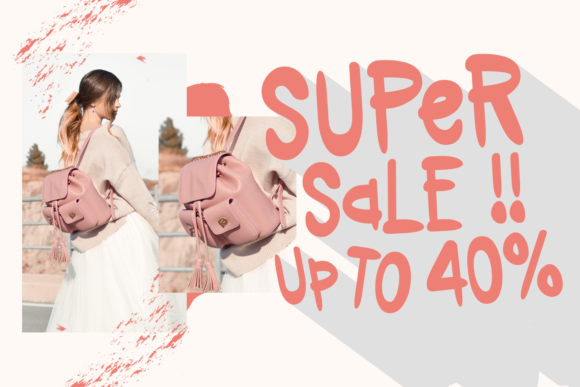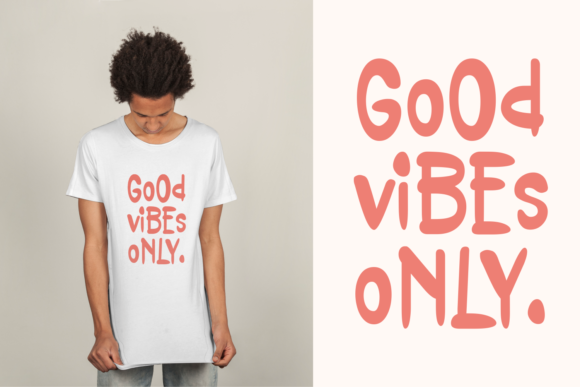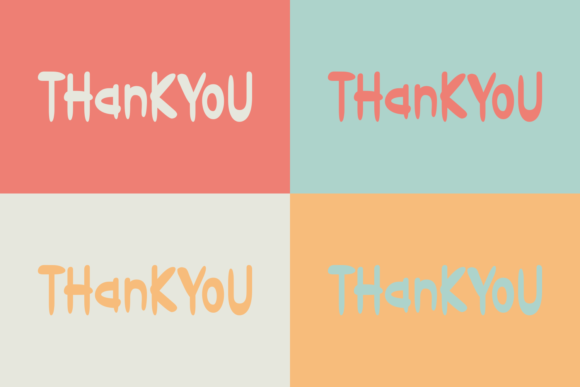
Introduction to Katwo Font
As a designer, there’s nothing quite like the thrill of discovering a new font that sparks creativity and sets your project ablaze. For me, it was the moment I stumbled upon the Katwo Font – a friendly and fun display font that exudes big character and a playful personality.
What drew me to Katwo Font was its unique blend of whimsy and sophistication, making it the perfect addition to any creative project. Whether you’re working on a branding campaign or a social media graphic, Katwo Font’s versatility shines through, offering a seamless experience with a transparent background and high-quality design. And the best part? It’s available for free download, making it an invaluable design resource for any creative enthusiast.
Key Features of Katwo Font
- High-quality, professional font suitable for creative projects, including logos, graphics, and branding materials.
- Features a transparent background, allowing for seamless integration with other design elements and backgrounds.
- Designed to be highly legible and versatile, with a wide range of applications, from body text to headings and titles.
- Unique, modern design aesthetic that sets it apart from other fonts, making it a great choice for designers looking to add a touch of creativity to their projects.
Honest Review: Katwo Font
As a designer, I’m always on the lookout for high-quality design resources to elevate my creative projects. Recently, I came across the Katwo Font, and I’m excited to share my thoughts on this versatile font.
What works well: ✨ The Katwo Font is incredibly easy to use, with a transparent background that makes it perfect for designers who like to work with layered designs. The font itself is clean, modern, and highly customizable, making it a great addition to any design project.
- ✨ Highly customizable
- ✨ Transparent background for seamless layering
Limitations: ⚠️ While the Katwo Font is a solid design resource, I did find that it’s not as comprehensive as some other fonts on the market. The font family is relatively small, which may limit its use in certain projects.
Overall, I’m impressed with the Katwo Font. It’s a great choice for designers who want a high-quality, easy-to-use font that won’t break the bank. With its transparent background and customizable design, it’s perfect for a wide range of creative projects.
To get the most out of the Katwo Font, use it in combination with other design resources. Experiment with different font sizes, colors, and styles to create a unique look. Also, consider using the Katwo Font in conjunction with images or other design elements to add depth and visual interest to your project.
The Katwo Font is a versatile design resource that can be used in a variety of creative projects, including branding, marketing materials, and website design. Its elegant and unique design makes it perfect for any project where you want to add a touch of sophistication and style.